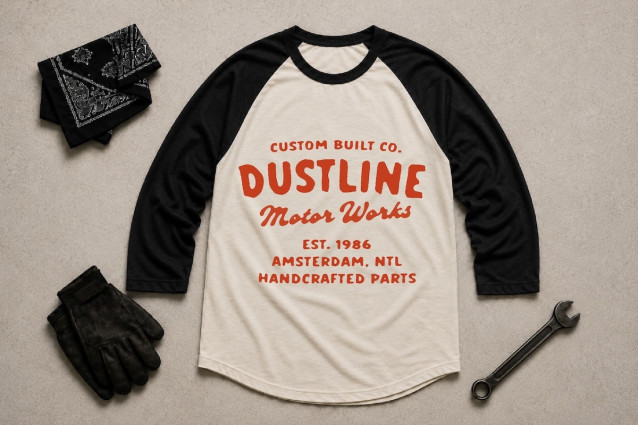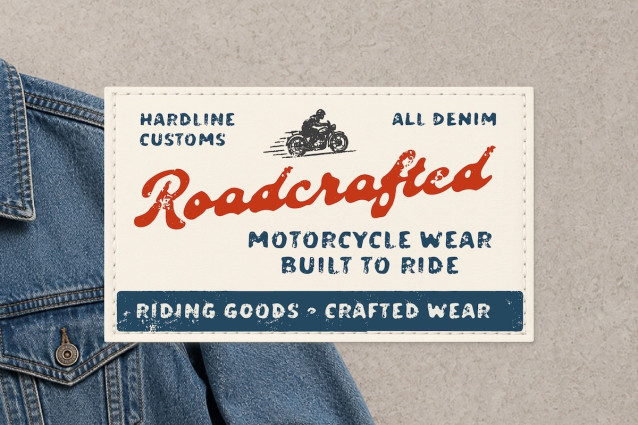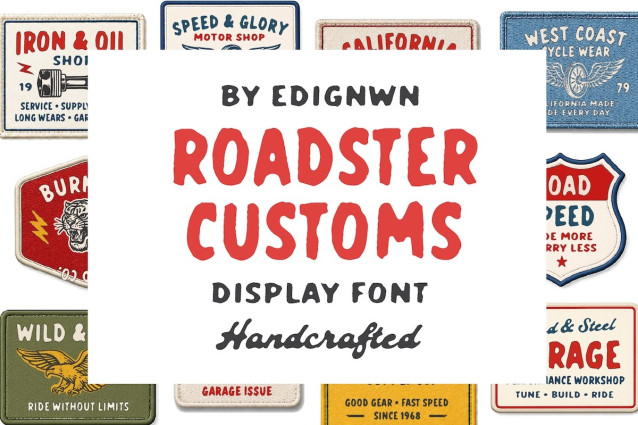
Roadster Customs Font
Roadster Customs Font is a handcrafted display font built with a raw garage lettering feel. Designed for visual branding designers working on vintage apparel, patch designs, garage identities, motor club graphics, and handcrafted goods, this font brings a bold custom-built spirit to every project.
The script style offers a strong handmade flow with old garage charm, while the two sans styles provide rugged supporting type for badges, labels, posters, logos, packaging, and apparel graphics. With both Regular and Textured styles included, Roadster Customs makes it easy to create clean brand visuals or distressed vintage designs with an authentic motorcycle culture feel.